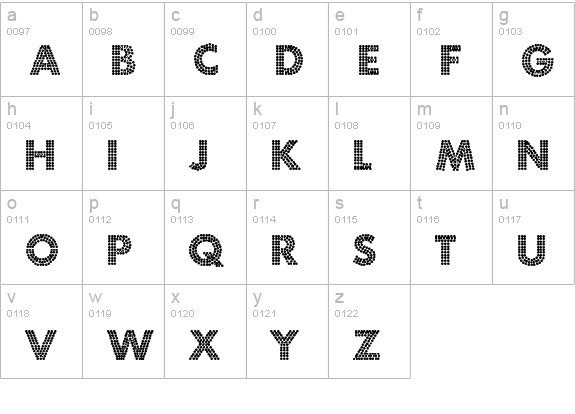
FortunaDotDarker Font Details
FortunaDotDarker font is a stylish and modern typeface that exudes elegance and sophistication. With its sleek lines and contemporary design, this font is perfect for a wide range of projects, from branding to editorial design. The bold and eye-catching look of FortunaDotDarker makes it ideal for headlines, posters, and logos. What sets FortunaDotDarker font apart is its versatility - it can be used for both display and text purposes, making it a versatile choice for designers and creatives. The clean and legible letterforms ensure that your message is conveyed clearly and effectively. Best of all, FortunaDotDarker font is available for free download at FontsMarket.com. This means that you can add this stunning typeface to your font library without any cost, making it a valuable addition to your design resources. Don't miss out on the opportunity to elevate your projects with the elegant and striking FortunaDotDarker font - download it today and unleash your creativity!